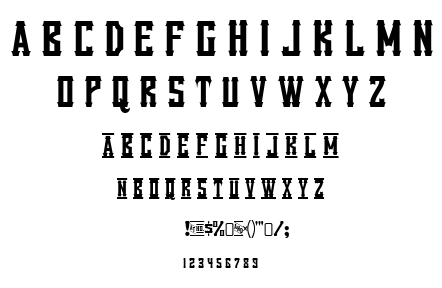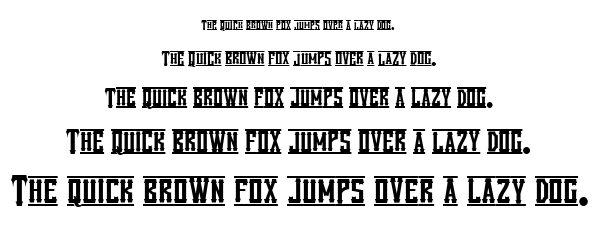
Vanilla Whale is not a cowboy font. Even if you think it’s a cowboy font it is definitely not one of those. Why would you even think that? Don’t forget to read the files inside the zip for details. Updated in 2012.